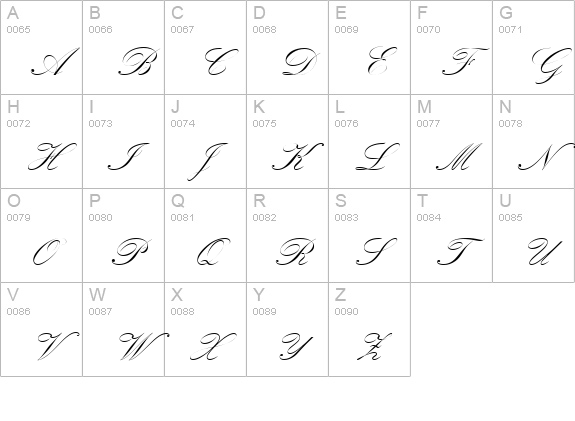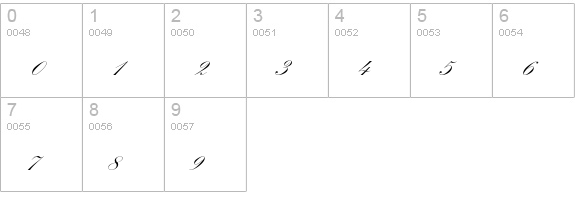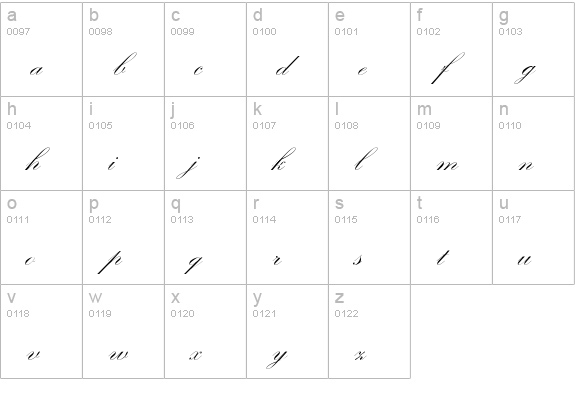
KunstlerschreibschDMed Font Details
The KunstlerschreibschDMed font is a stunning display typeface that exudes elegance and sophistication. With its intricate details and stylish curves, this font is perfect for adding a touch of class to any design project. The bold and distinctive letterforms make a strong statement, while still maintaining a sense of refinement. What sets KunstlerschreibschDMed font apart is its versatility - it can be used for a wide range of design applications, from logos and branding to invitations and posters. Its timeless appeal ensures that your designs will stand out and make a lasting impression. Best of all, this exquisite font is available for free download at FontsMarket.com. So why wait? Add KunstlerschreibschDMed font to your collection today and elevate your design projects to the next level.